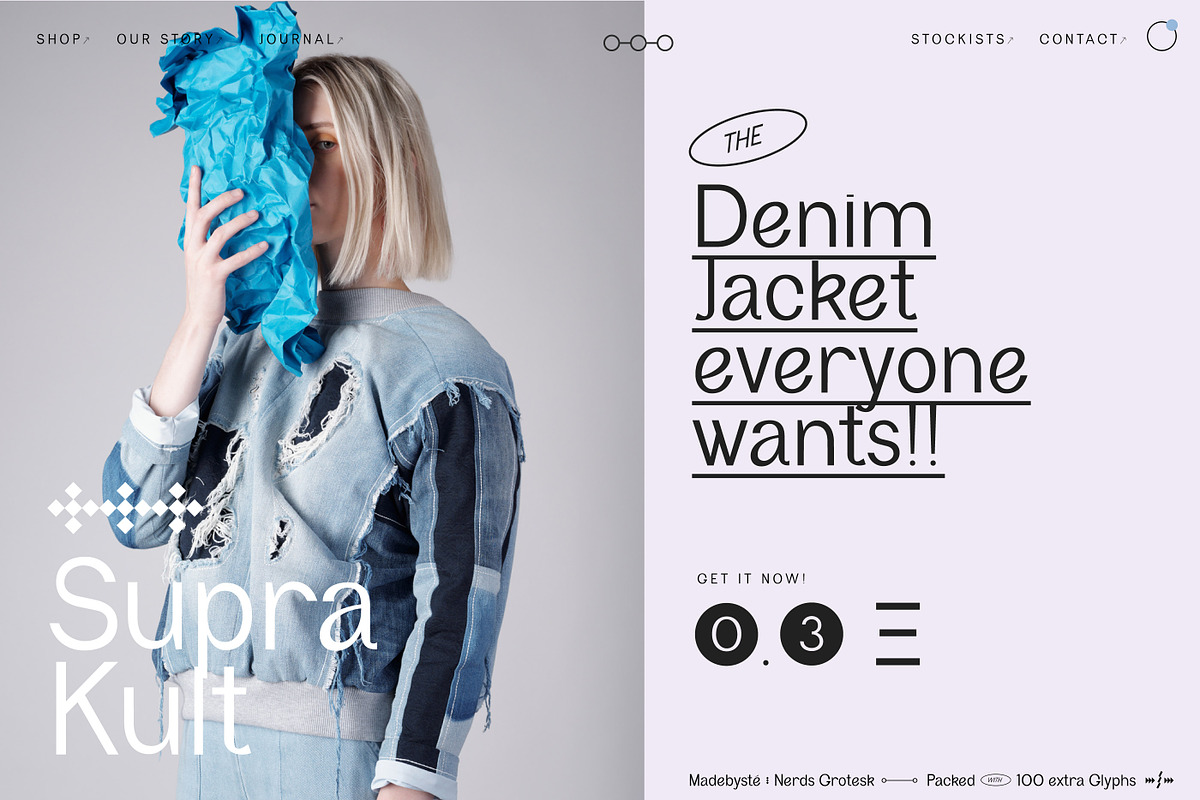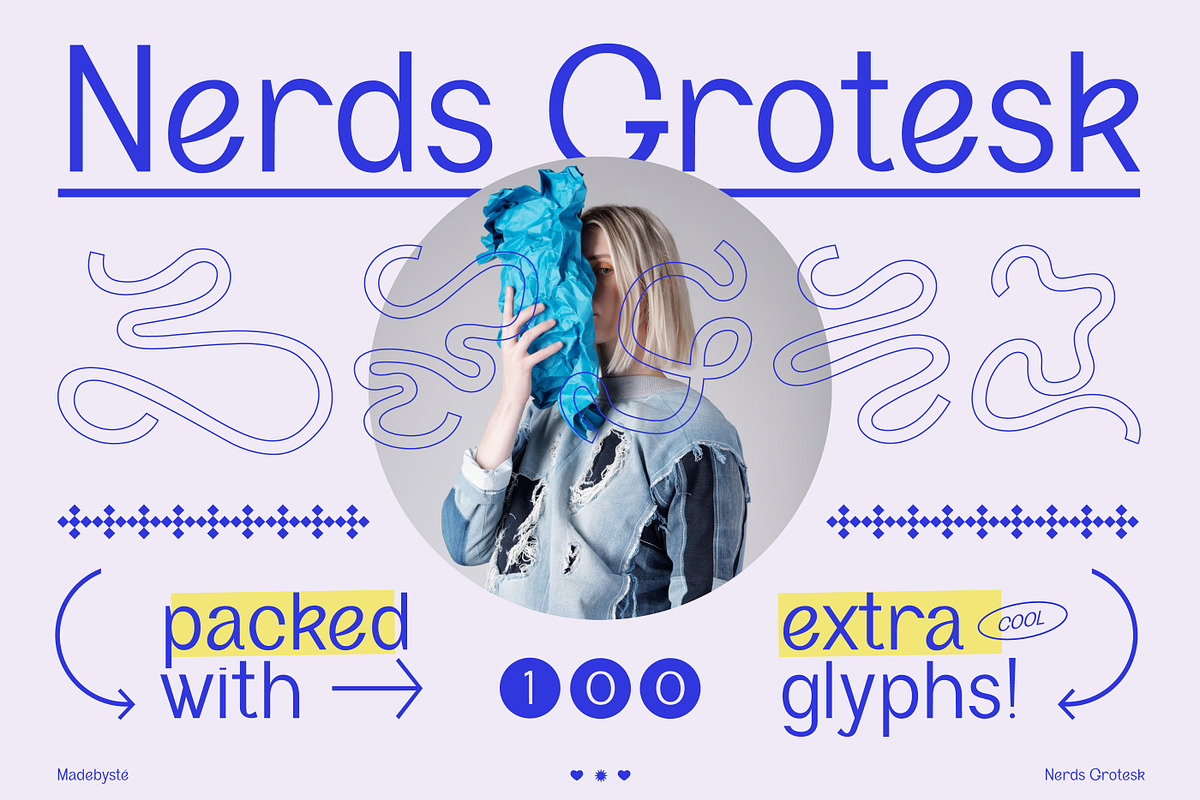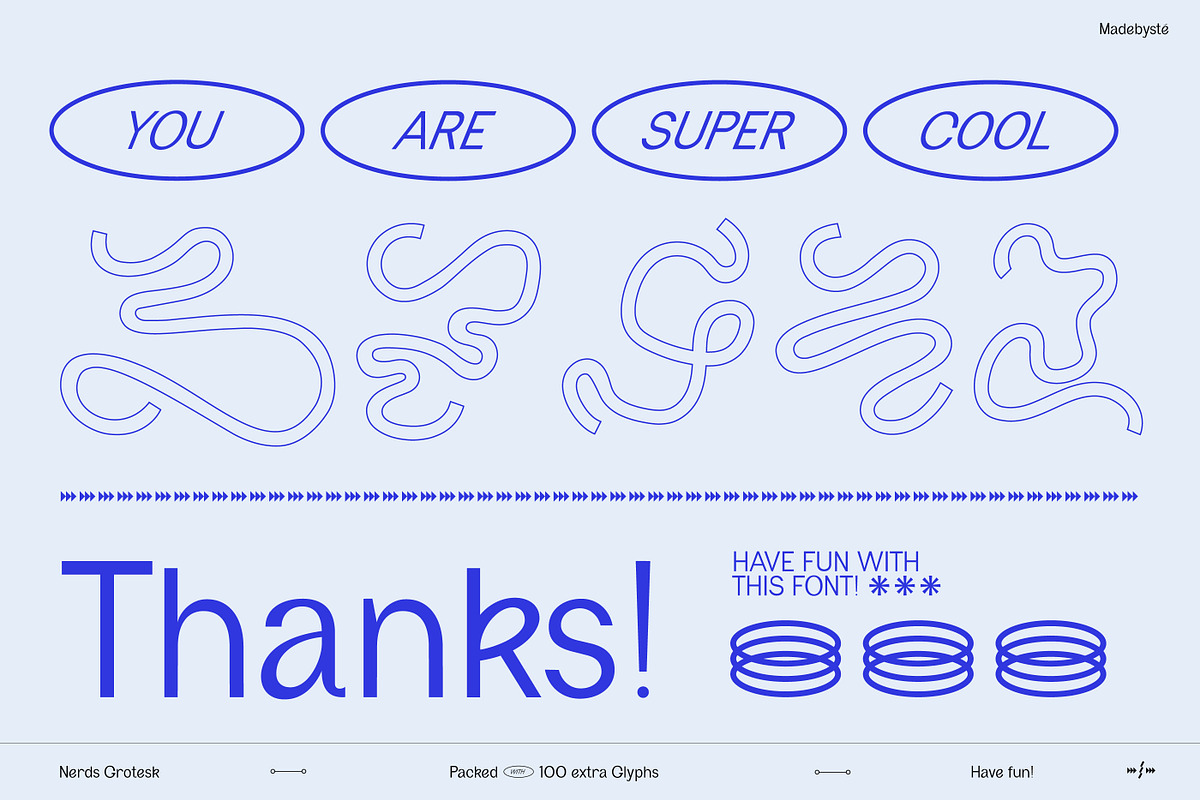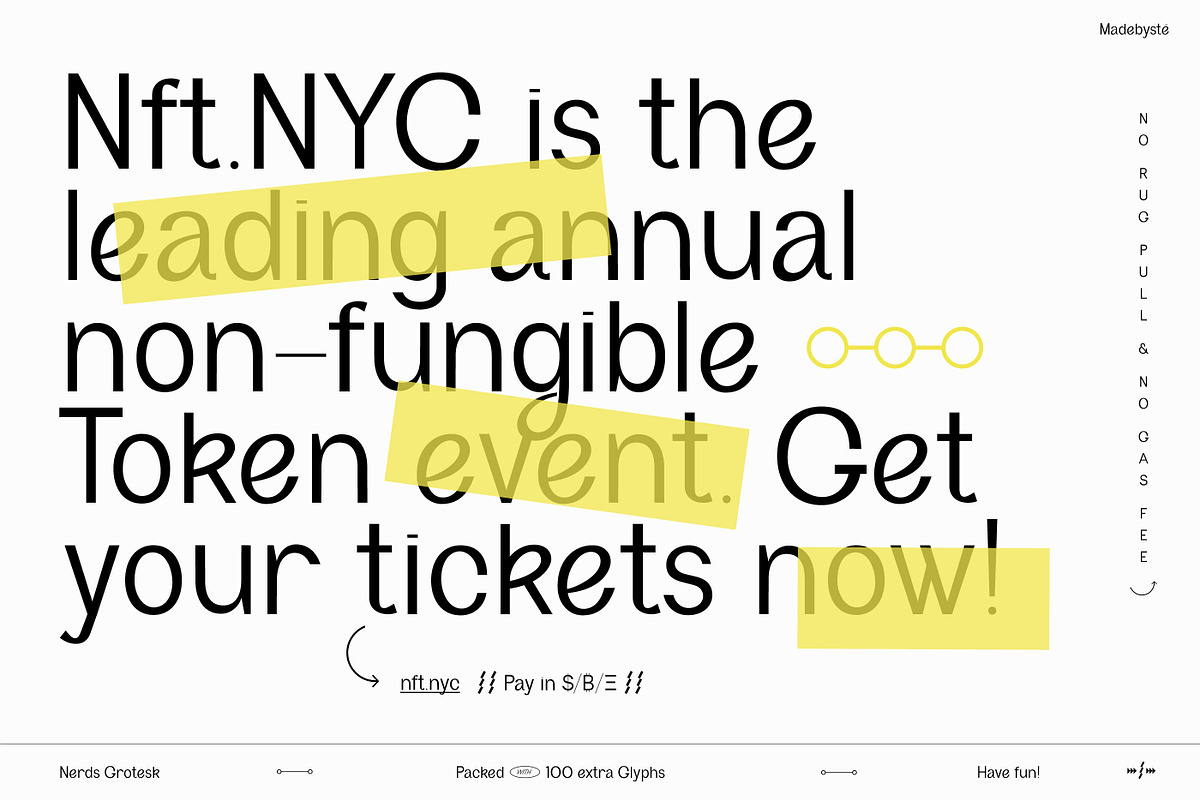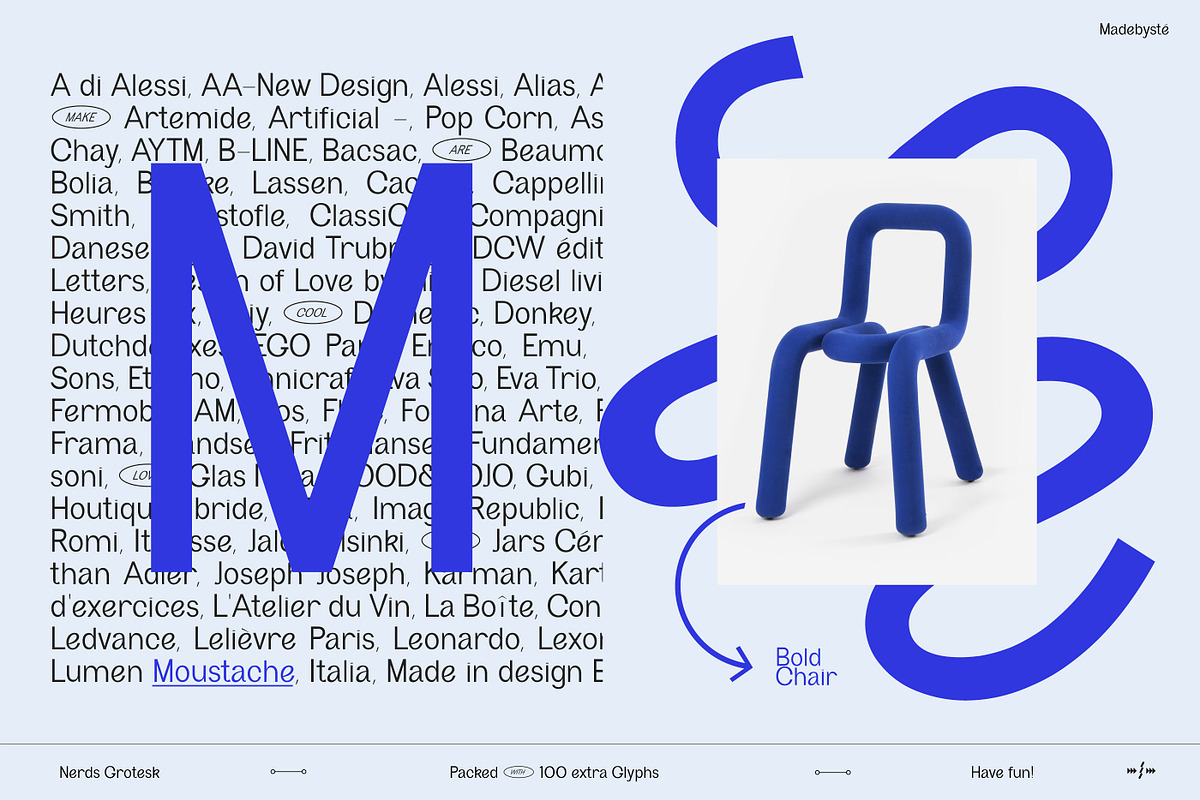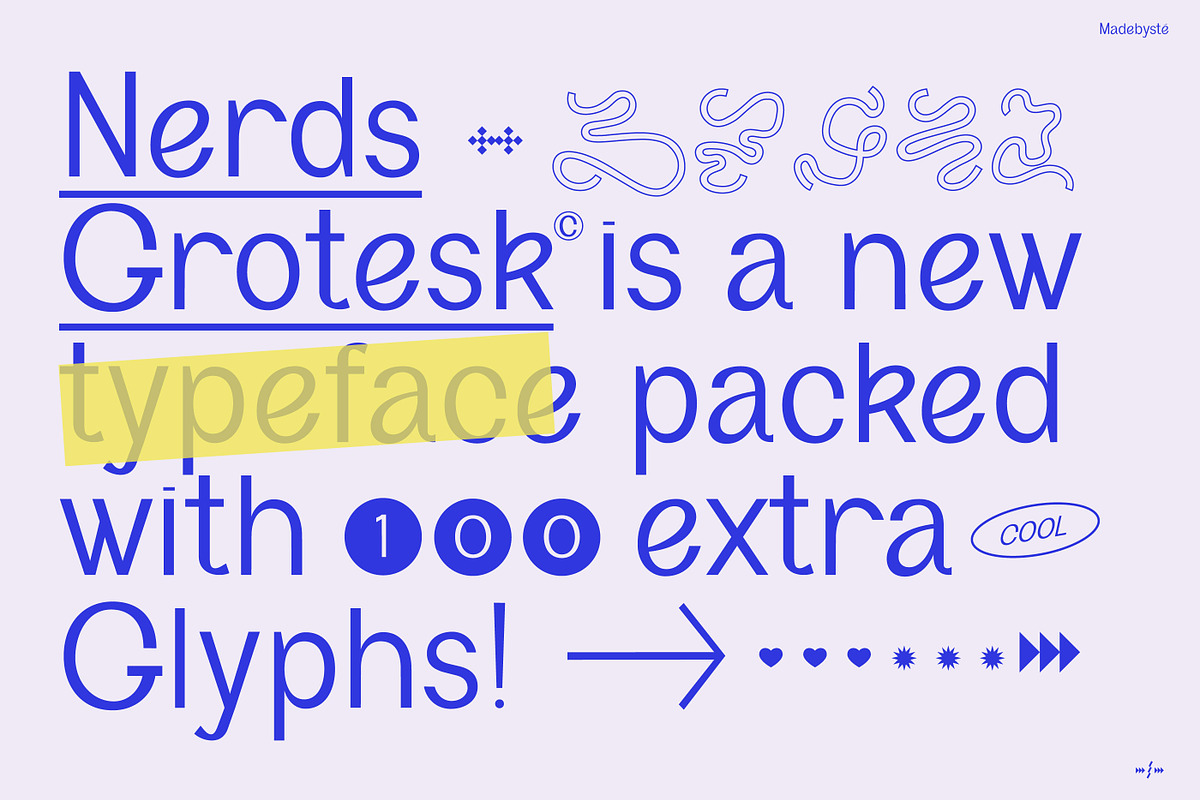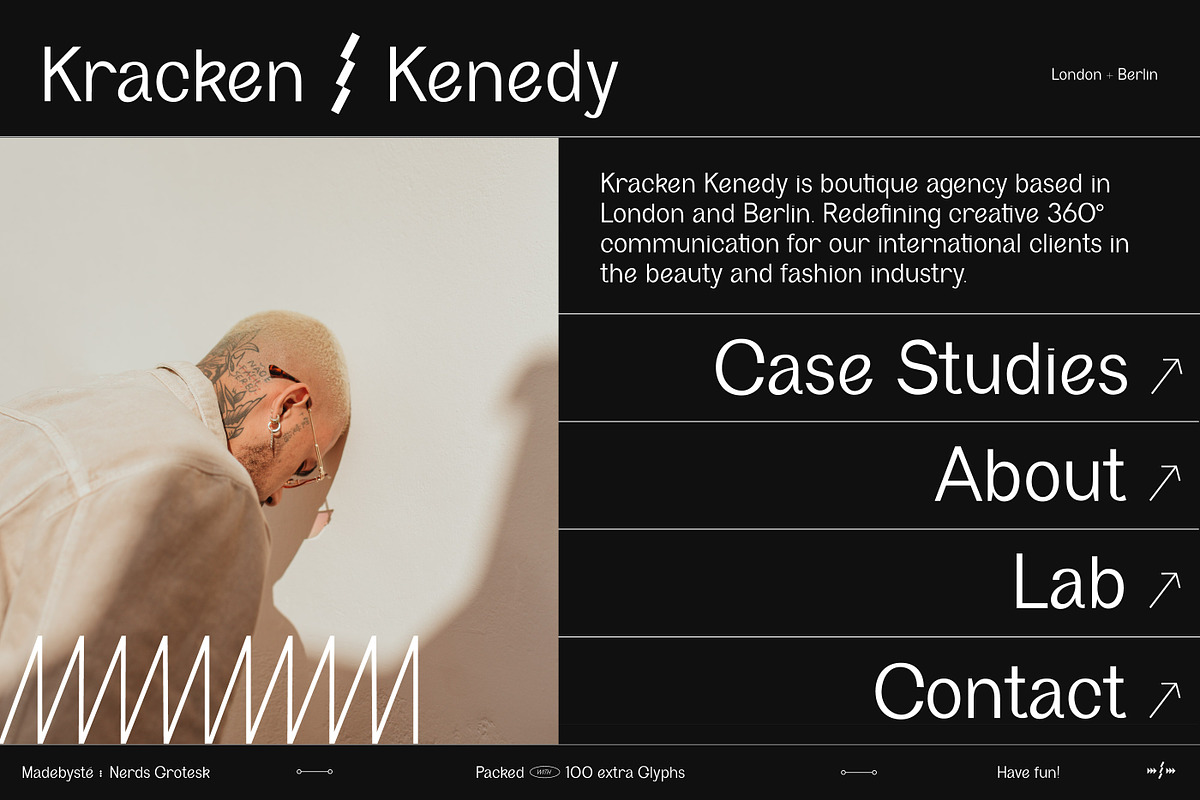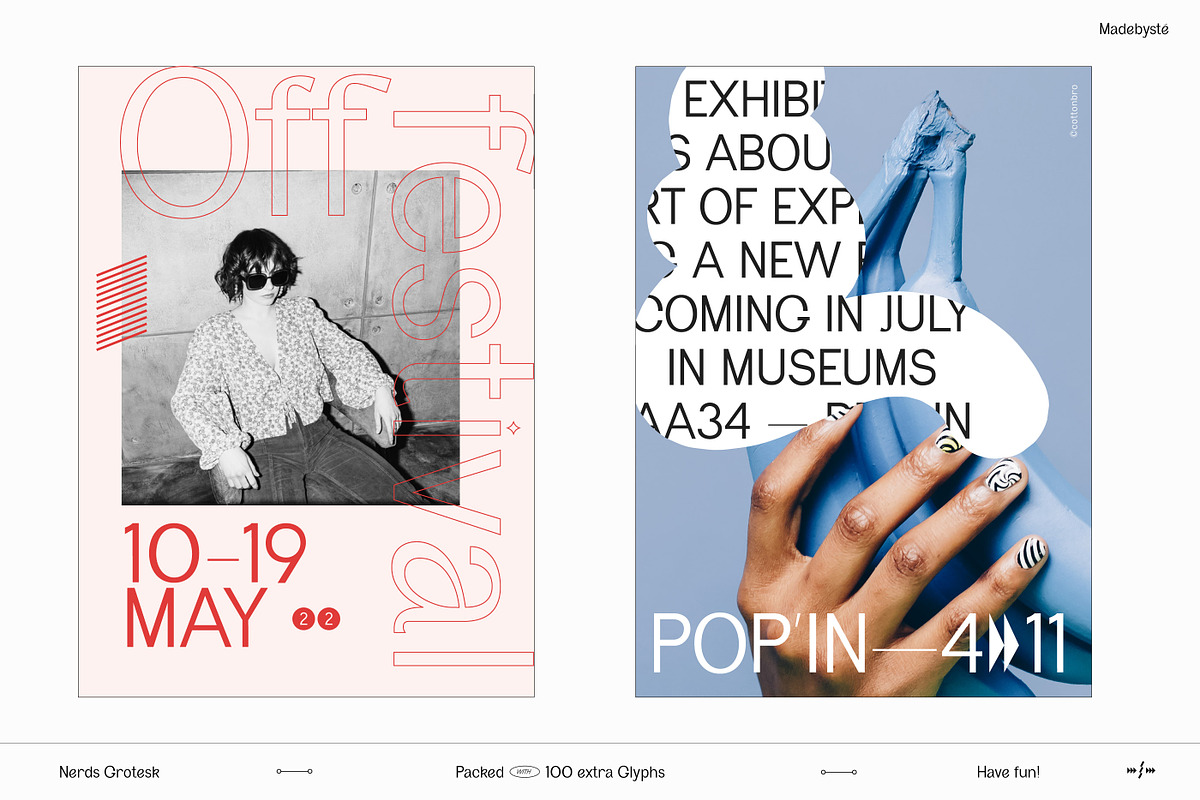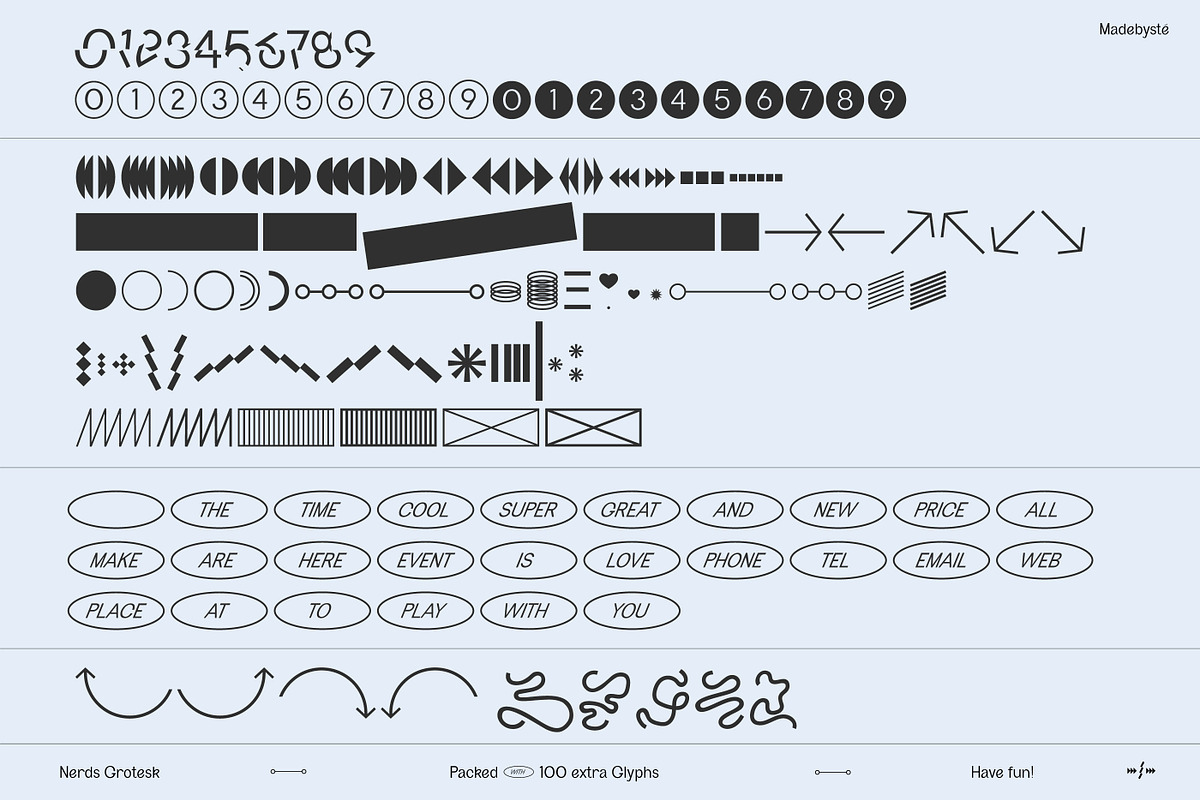
Nerds Grotesk
Nerds Grotesk is a modern sans serif packed with lots of graphic Glyphs. Play with 100 extra Glyphs to create cool posters, graphic works, logos and much more. This font is very legible in all sizes. It's ideal for editorial design, creative branding, web design.